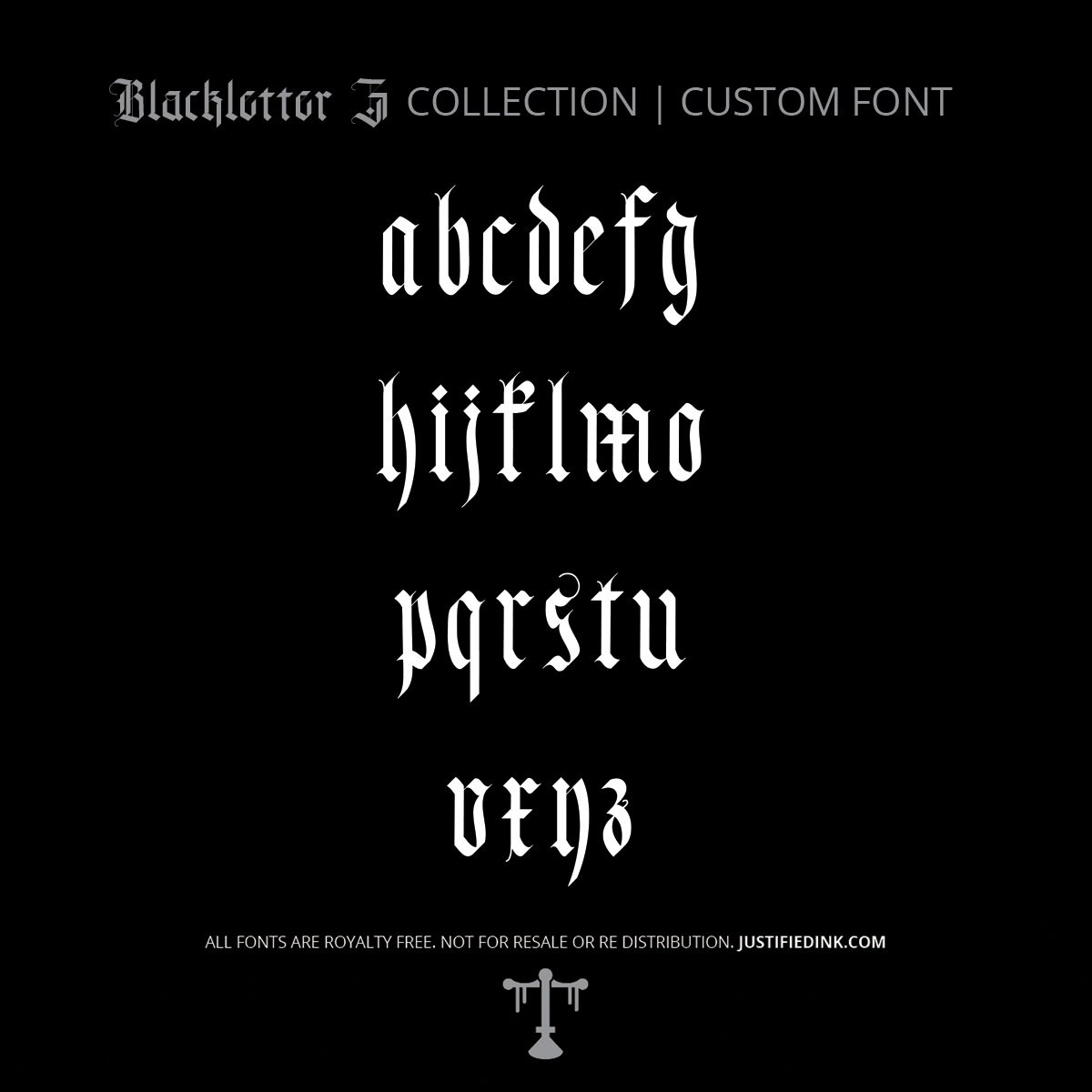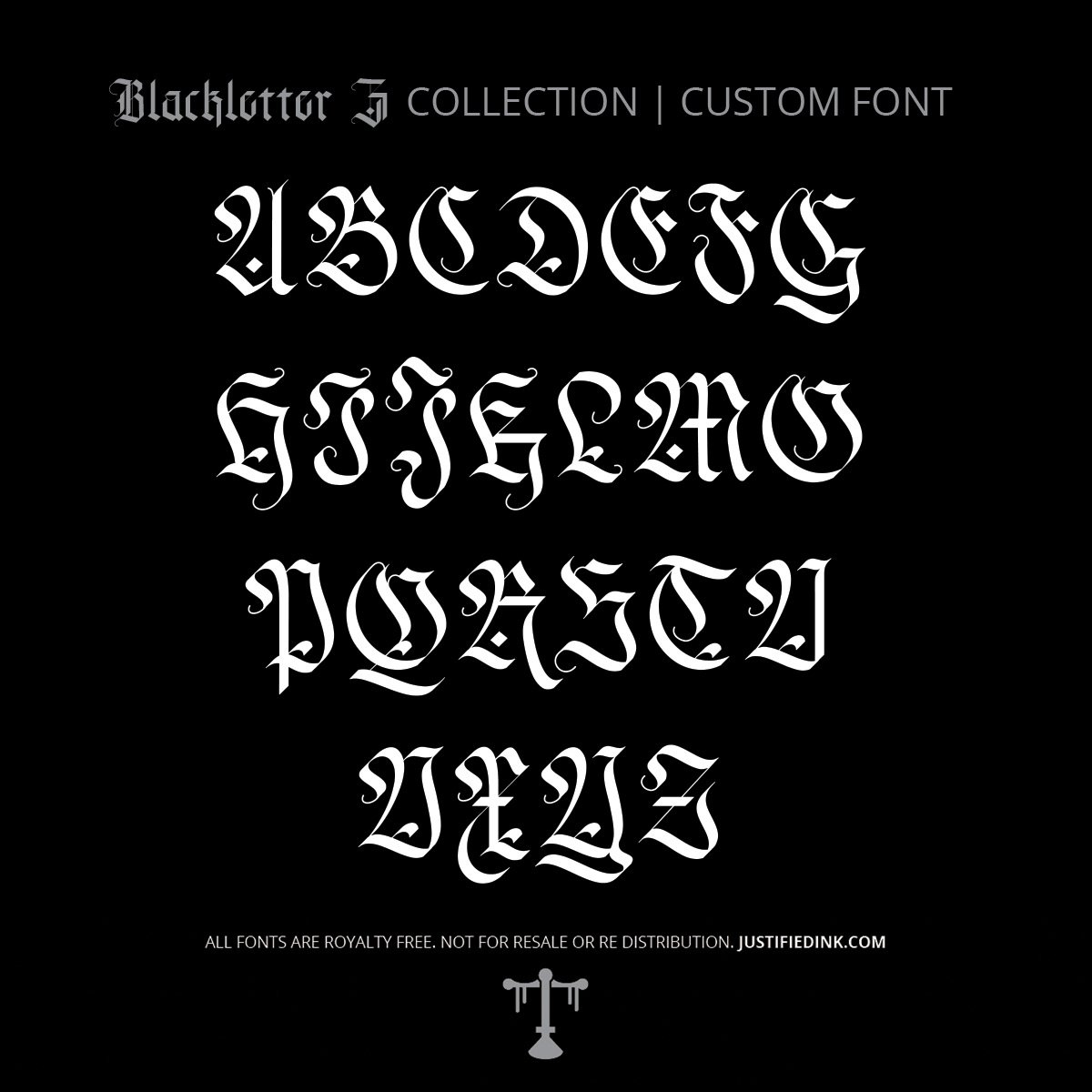
Fraktur II (1 style) - Custom Font
A Sharpened Evolution of Tradition
Fraktur II builds on the heritage of German blackletter, refined with sharper cuts and modern balance. It keeps the gothic essence while offering clarity for contemporary use—tattoo lettering, editorial design, or digital artwork. A continuation of fraktur’s long history, reimagined for today.